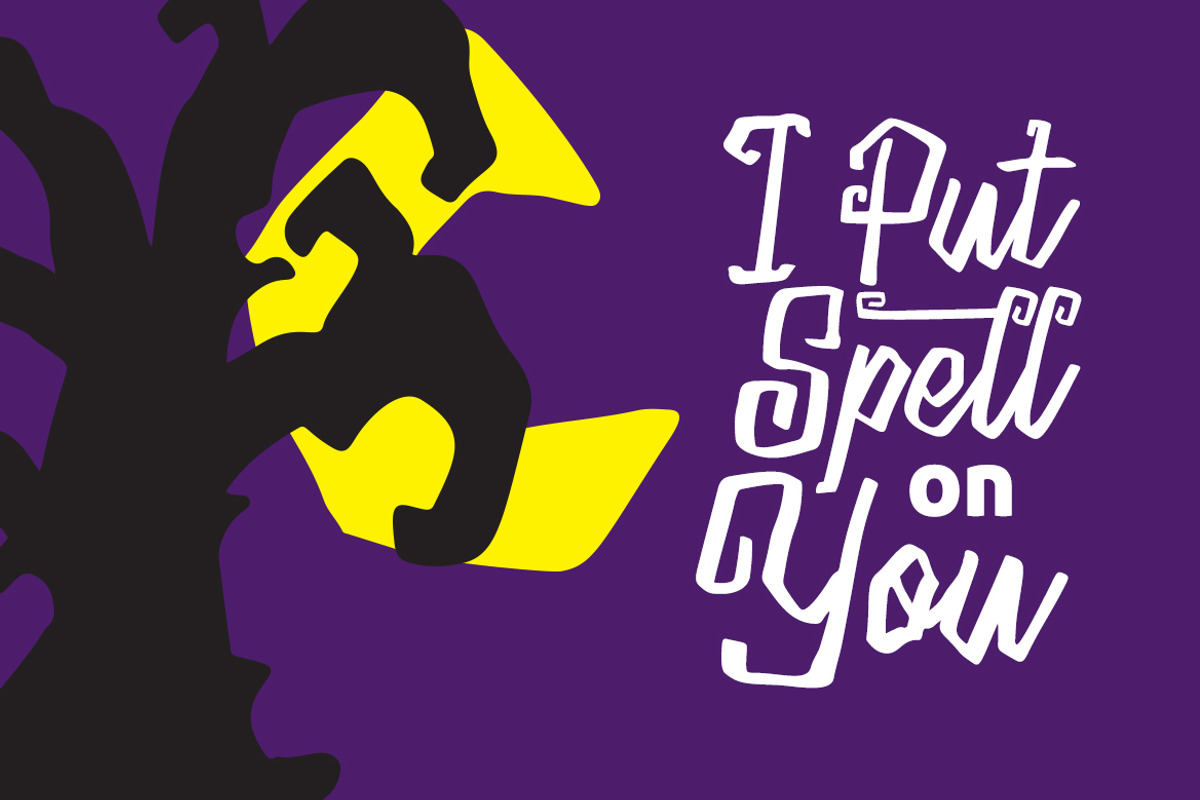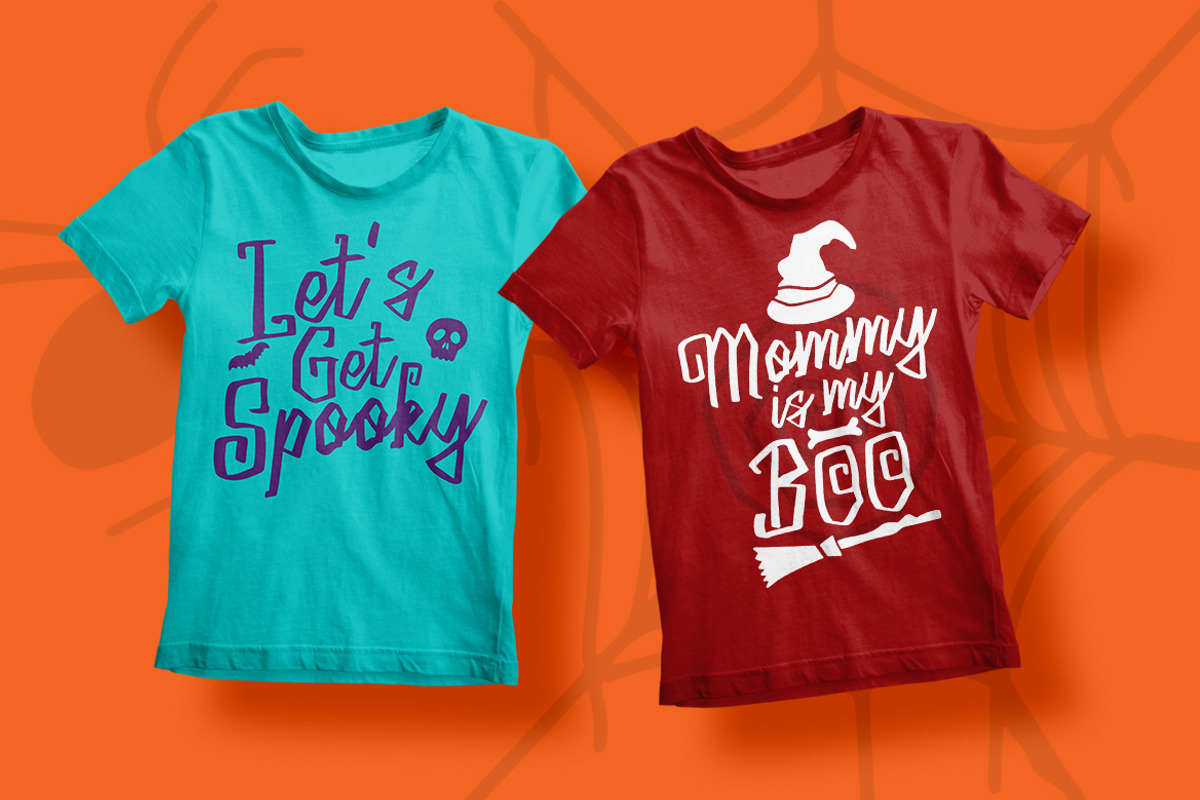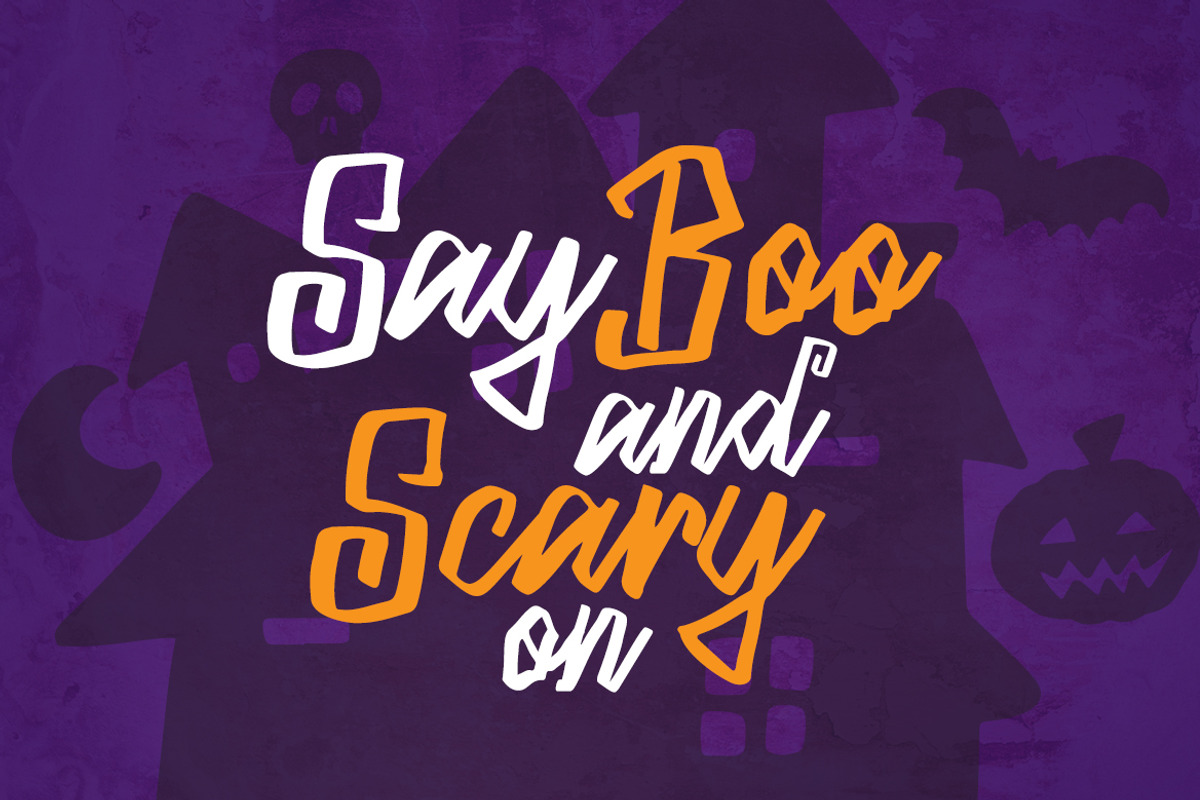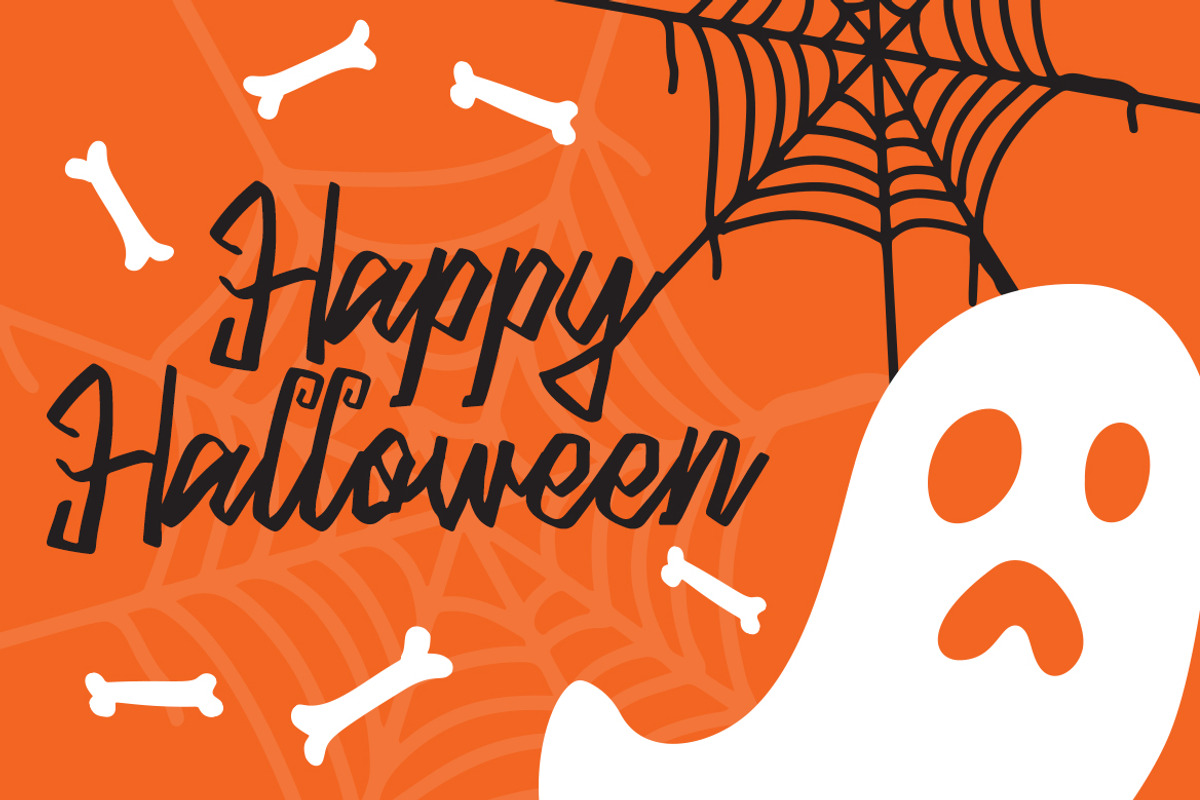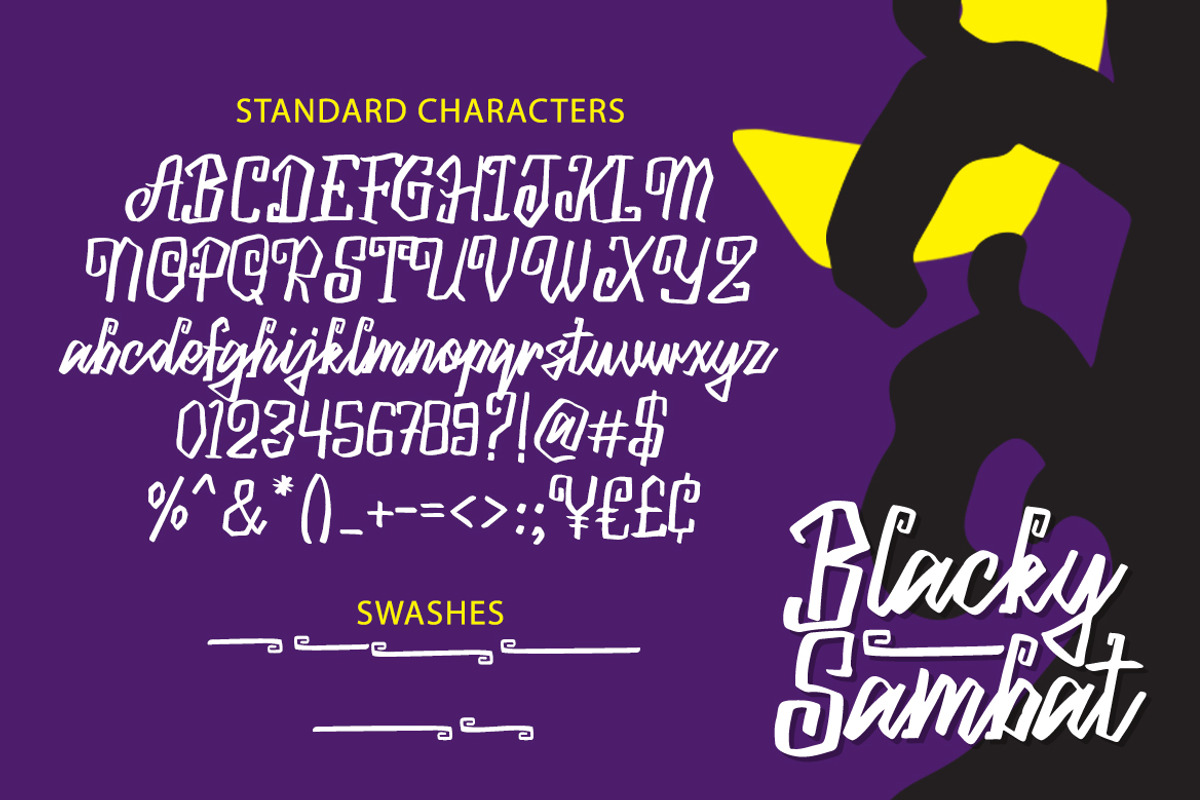
Blacky Sambat - Halloween Font
Hello there! This is Blacky Sambat, a unique handwritten font perfect for Halloween Day!
Blacky Sambat is perfect for flyer design, tshirt, invitation, banner, illustration, poster, event, sticker, promo, logo, sales and etc.
Blacky Sambat is comes with Halloween-themed illustrations in EPS and OTF / TTF formats. With this, you can make Halloween designs easier and more varied.
All fonts containing upper & lowercase characters, numerals, punctuation, multilingual support and dingbats halloween illustration.
Blacky Sambat - Halloween Font by Weape Studio fits naturally into Branding, posters, packaging, typography.